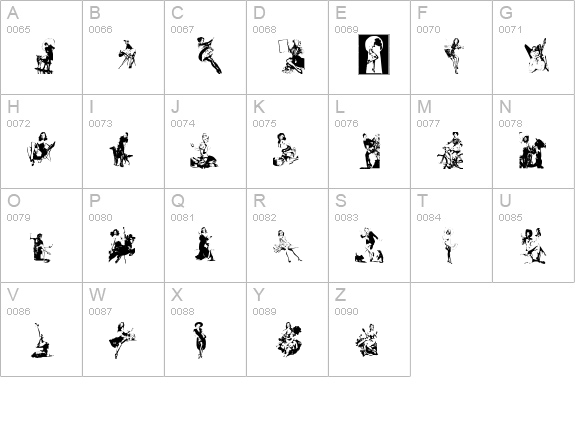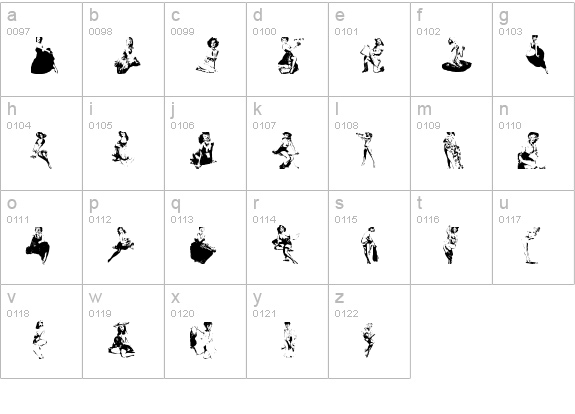
Elvgren Pin-ups Font Details
Elvgren Pin-ups font is a charming and playful typeface inspired by the classic pin-up illustrations of the mid-20th century. Its elegant curves and timeless appeal make it perfect for adding a touch of retro glamour to your designs. With its vintage flair and alluring style, Elvgren Pin-ups font is sure to make a statement and capture attention. Best of all, Elvgren Pin-ups font is available for free download at FontsMarket.com. This means you can easily add this delightful font to your collection without any cost. Whether you're working on a poster, invitation, or branding project, Elvgren Pin-ups font will bring a sense of nostalgia and sophistication to your work. Download it today and let your designs shine with a touch of vintage charm.